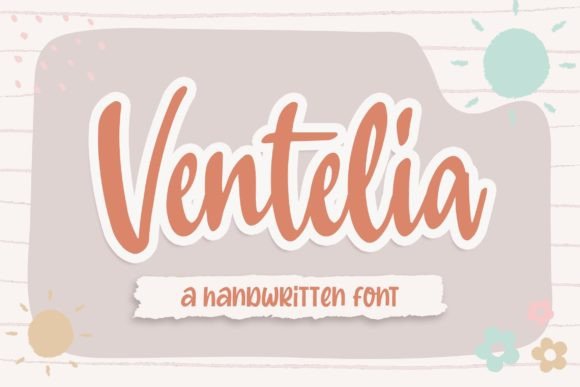
In a world saturated with monotonous, conventional fonts, dare to stand out with Ventelia, a script font that dances with charm and elegance. Inspired by the timeless beauty of handwritten notes, Ventelia brings a touch of whimsy and creativity to your digital designs.
Picture this: you're crafting a business form, and you want it to be more than just a dry document. With Ventelia, you can infuse your forms with a captivating flair that invites your readers to engage with your content. Turn those mundane forms into works of art, leaving a lasting impression on your audience.
Ventelia is not just a font; it's an experience. Immerse yourself in the world of imagination and creativity as you explore the endless possibilities of this font. It's perfect for book covers that whisper tales of adventure, posters that burst with color, packaging that beckons with intrigue, and merchandise that carries a unique story. Unleash your inner artist and create designs that spark joy and captivate hearts.
With its impeccable aesthetics and playful spirit, Ventelia is a font that elevates your designs to new heights. Let your creativity soar as you craft logotypes that exude sophistication, posters that command attention, and branding that leaves an unforgettable mark. Ventelia is the perfect companion for those who seek to create designs that resonate with their audience, leaving a lasting impression that lingers in their minds.
So why settle for ordinary when you can embrace the extraordinary? Embrace Ventelia, the font that ignites your imagination and sets your designs ablaze with creativity. Let your designs speak volumes, whispering tales of wonder and enchantment. With Ventelia, the possibilities are limitless, and the journey of self-expression begins now.